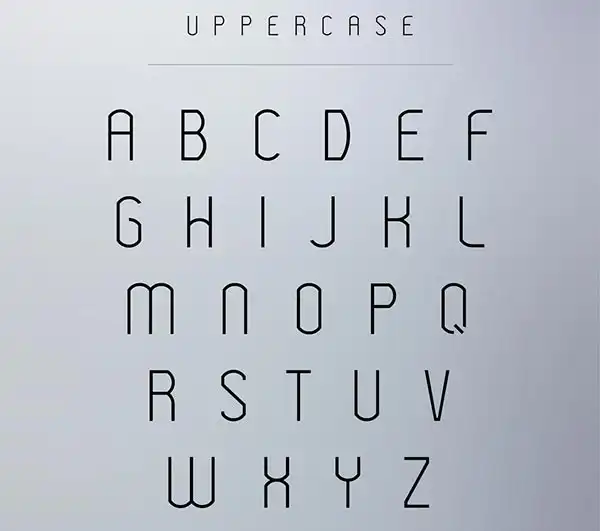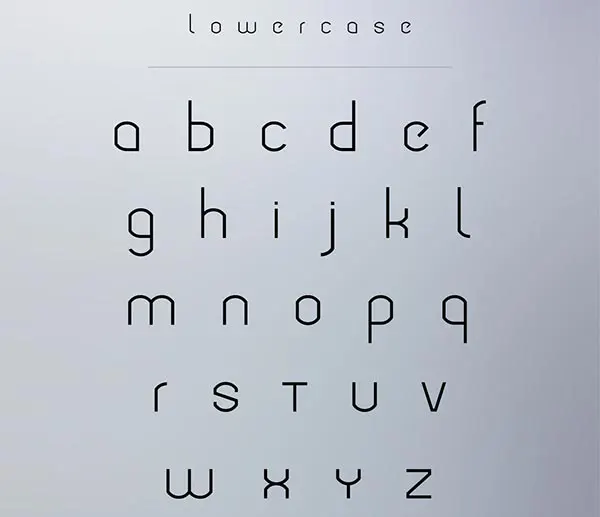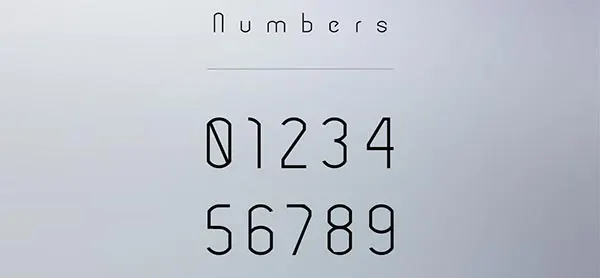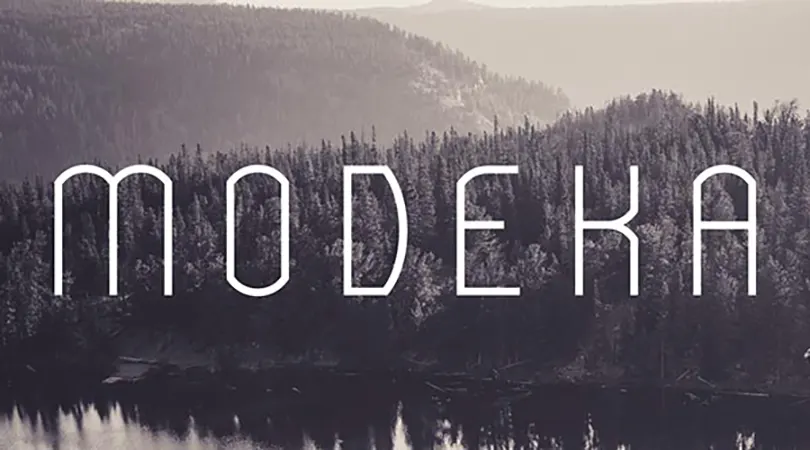
Modeka is a free modern typeface that really looks elegant and attractive. Modeka typeface can be used in any graphic design from logos to brochures to banners to billboards to make your designs a stunning look. The main idea behind Modeka typeface was to combine corners and round the details of letters. This modern font will give an attractive look and feel to your designs.